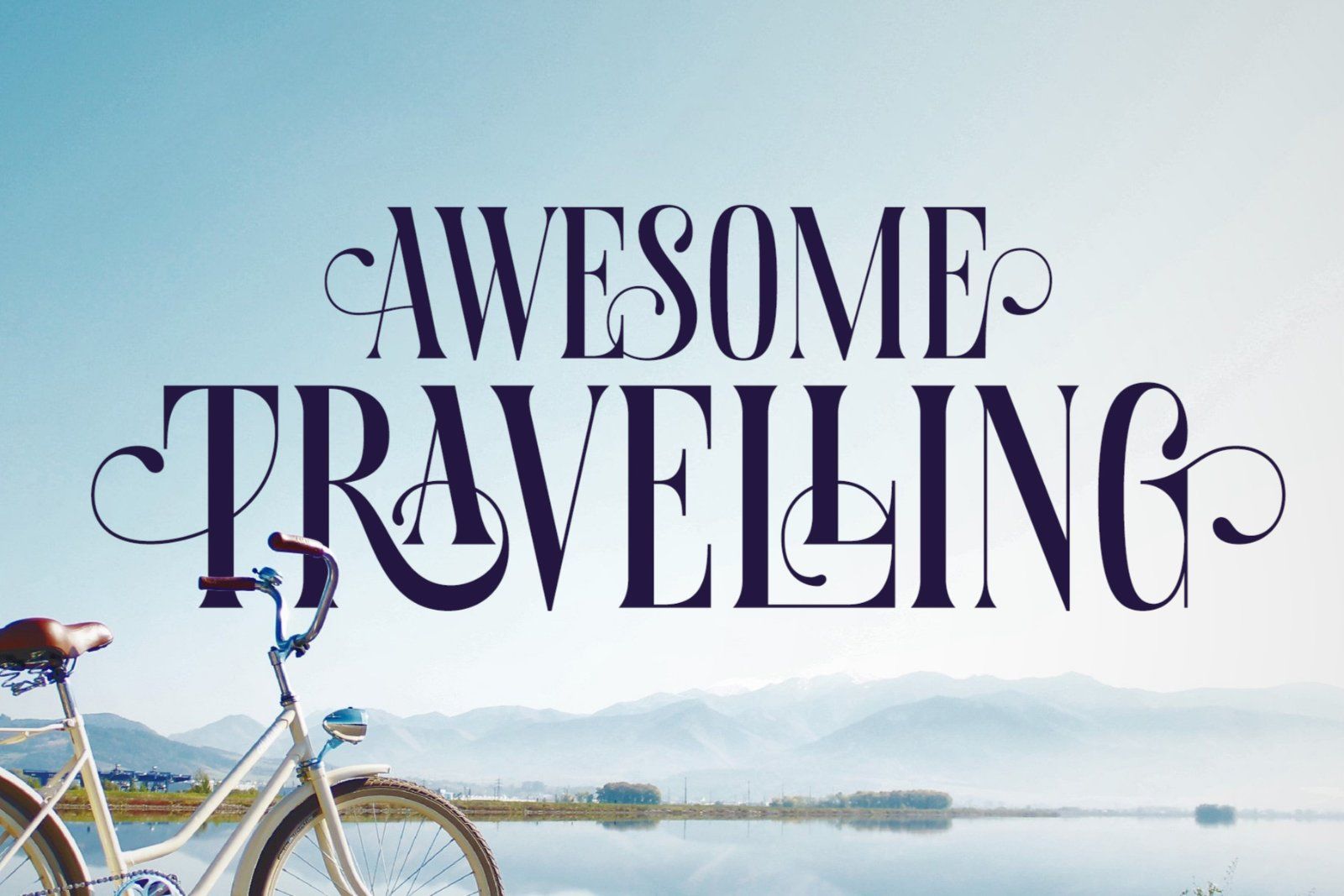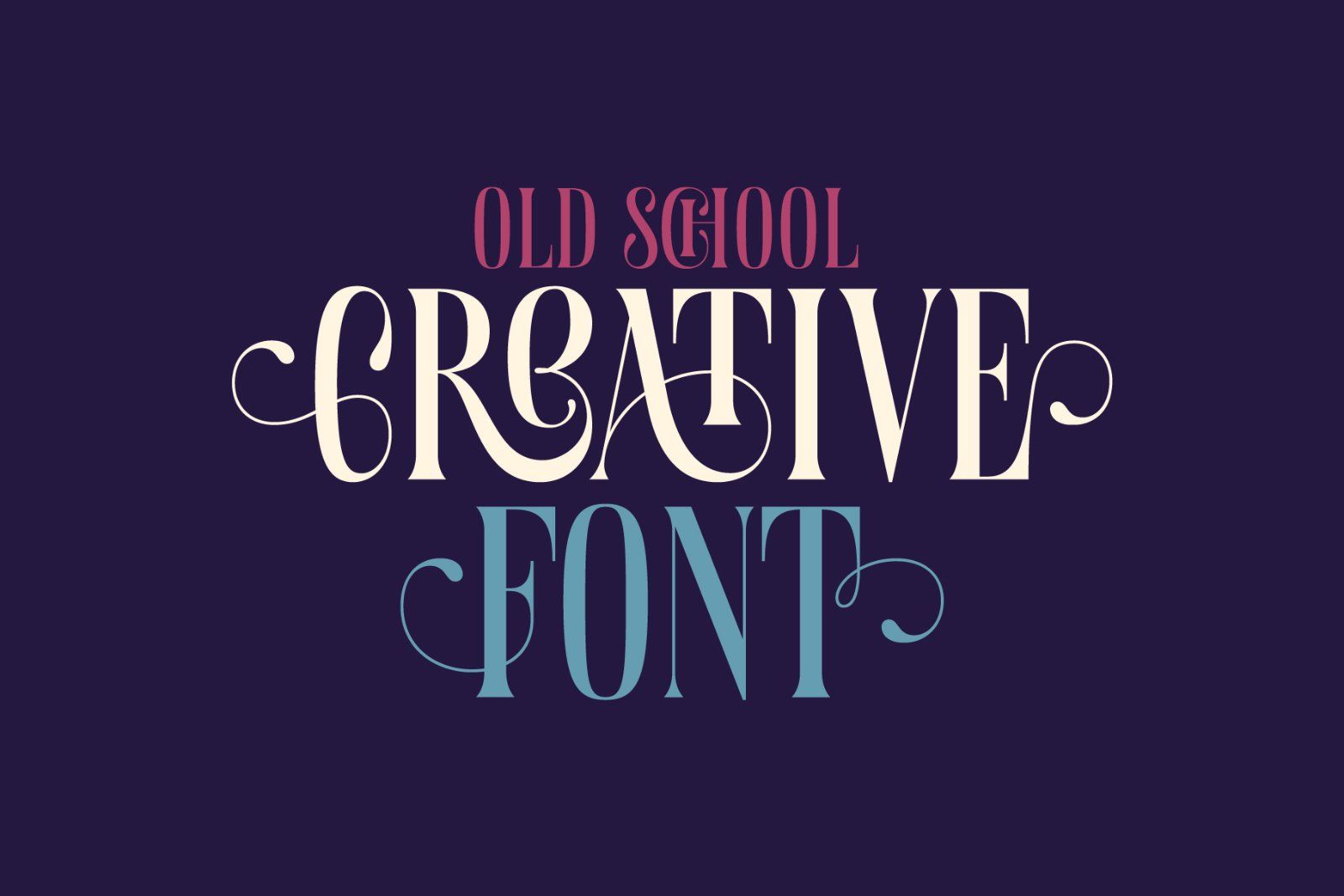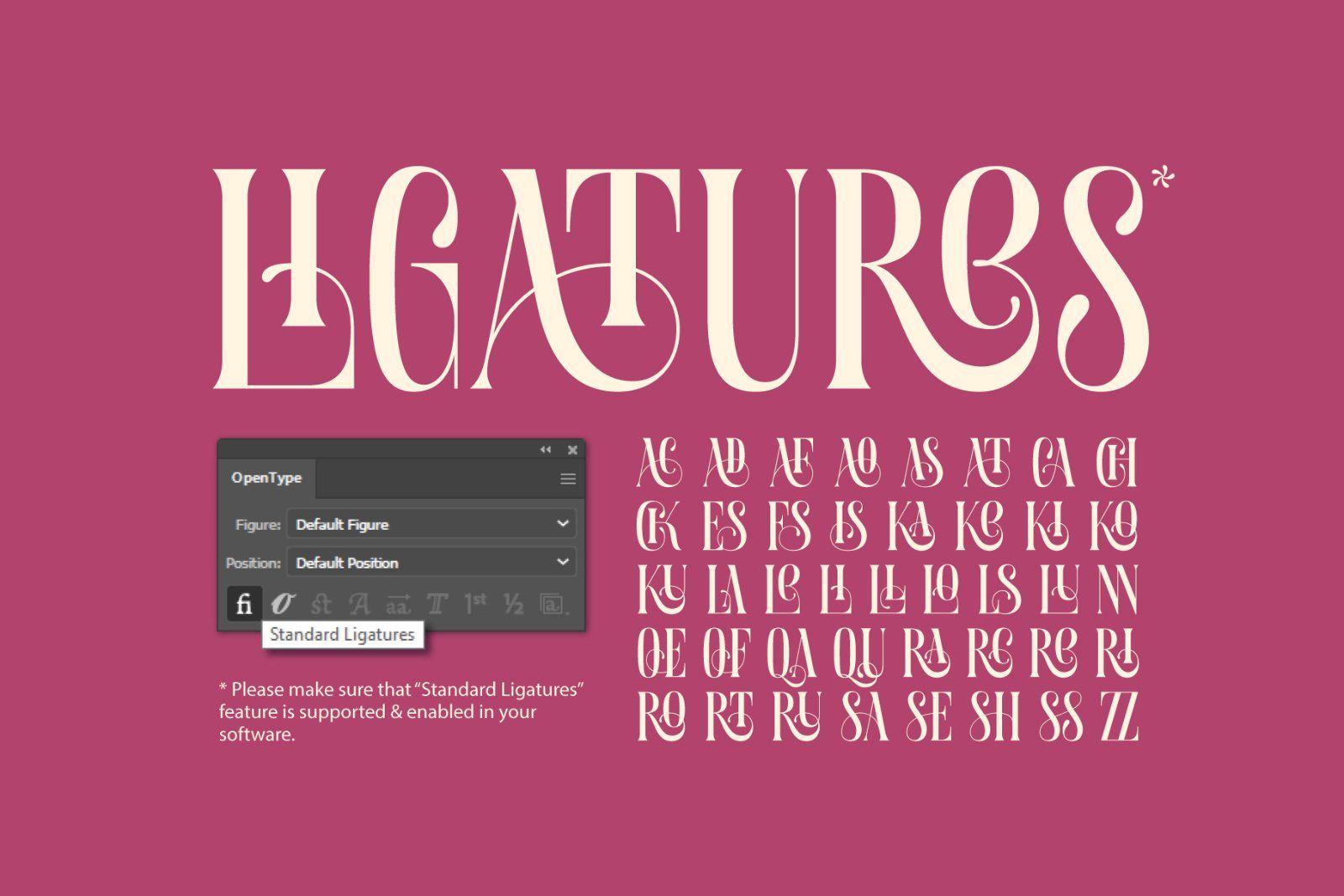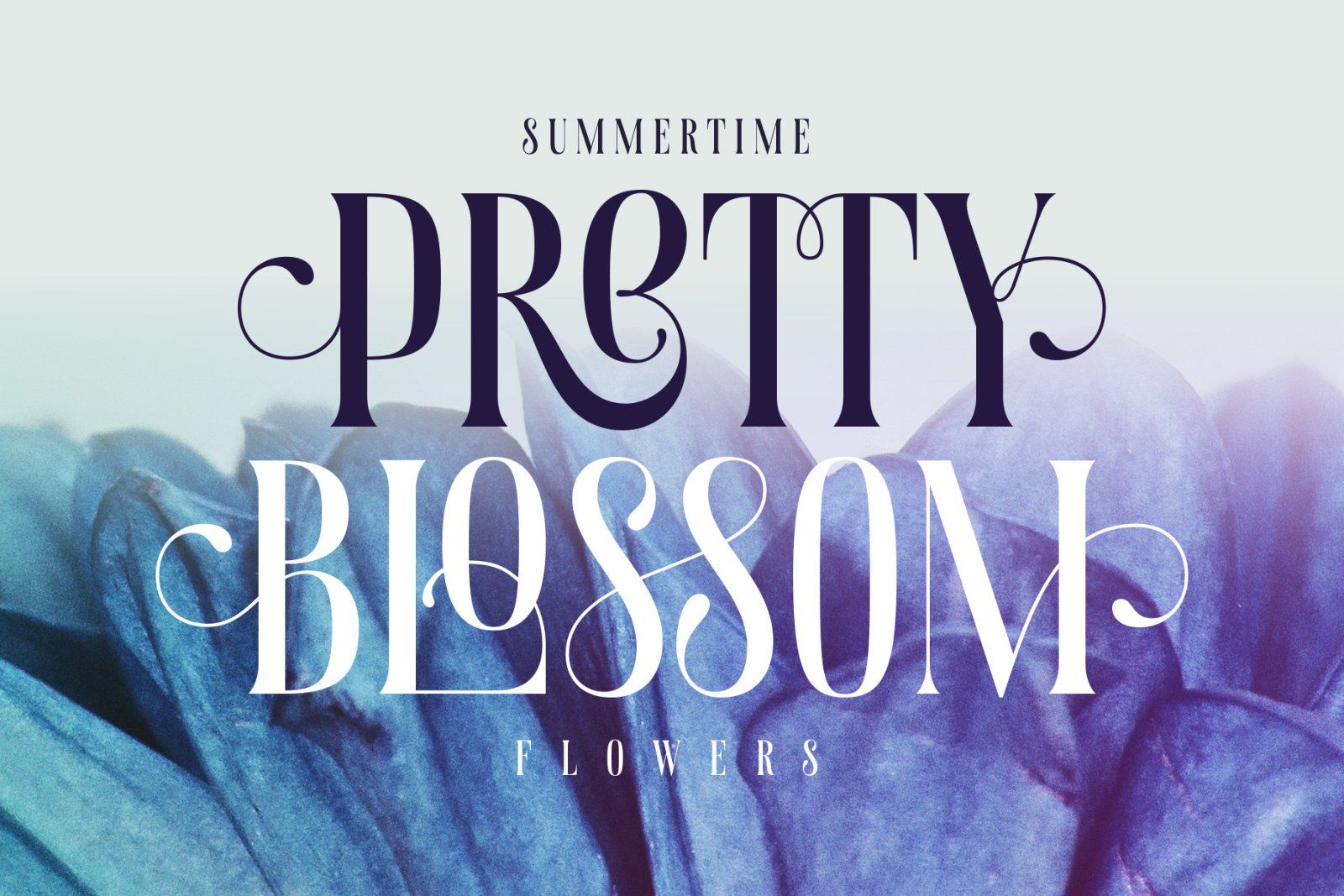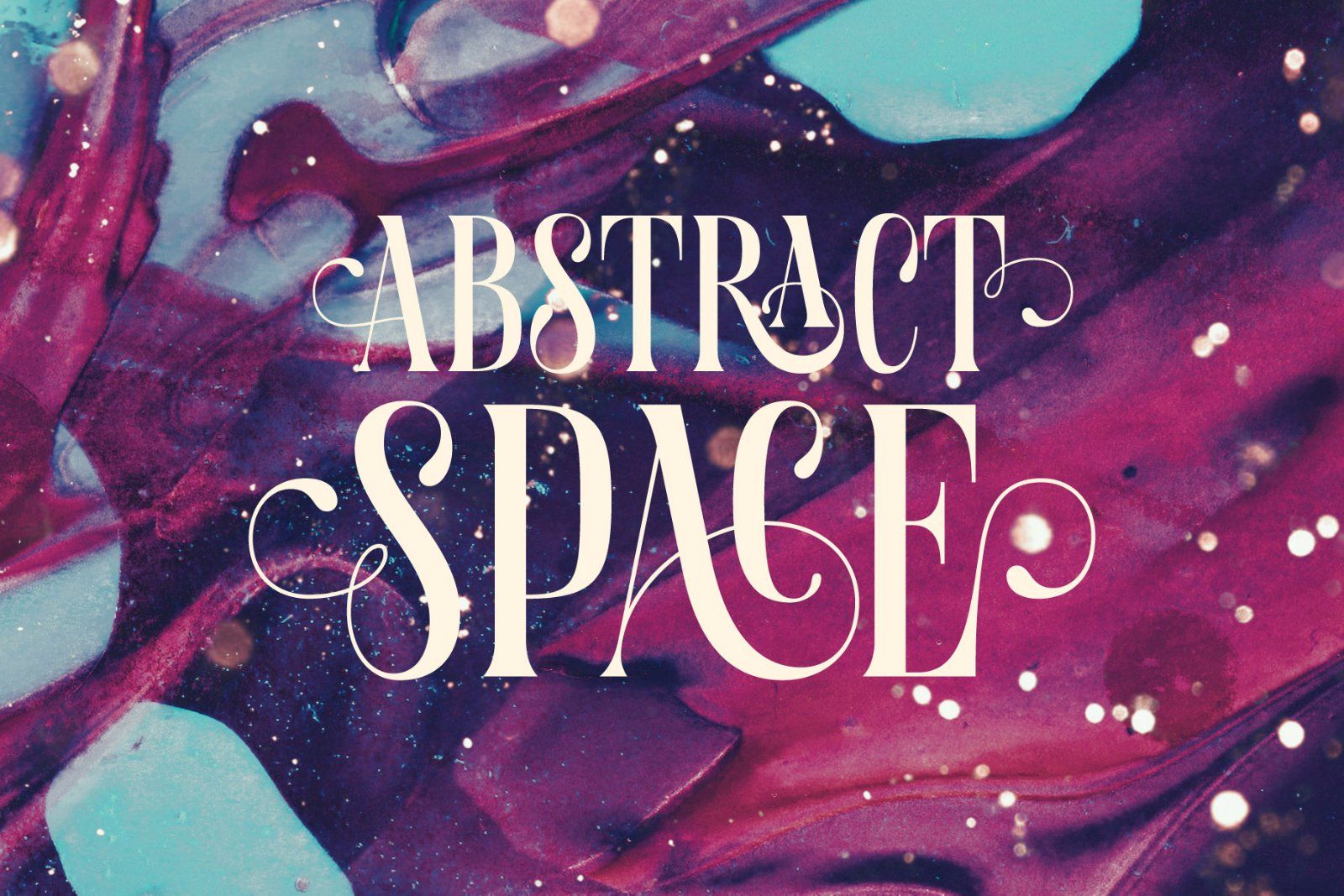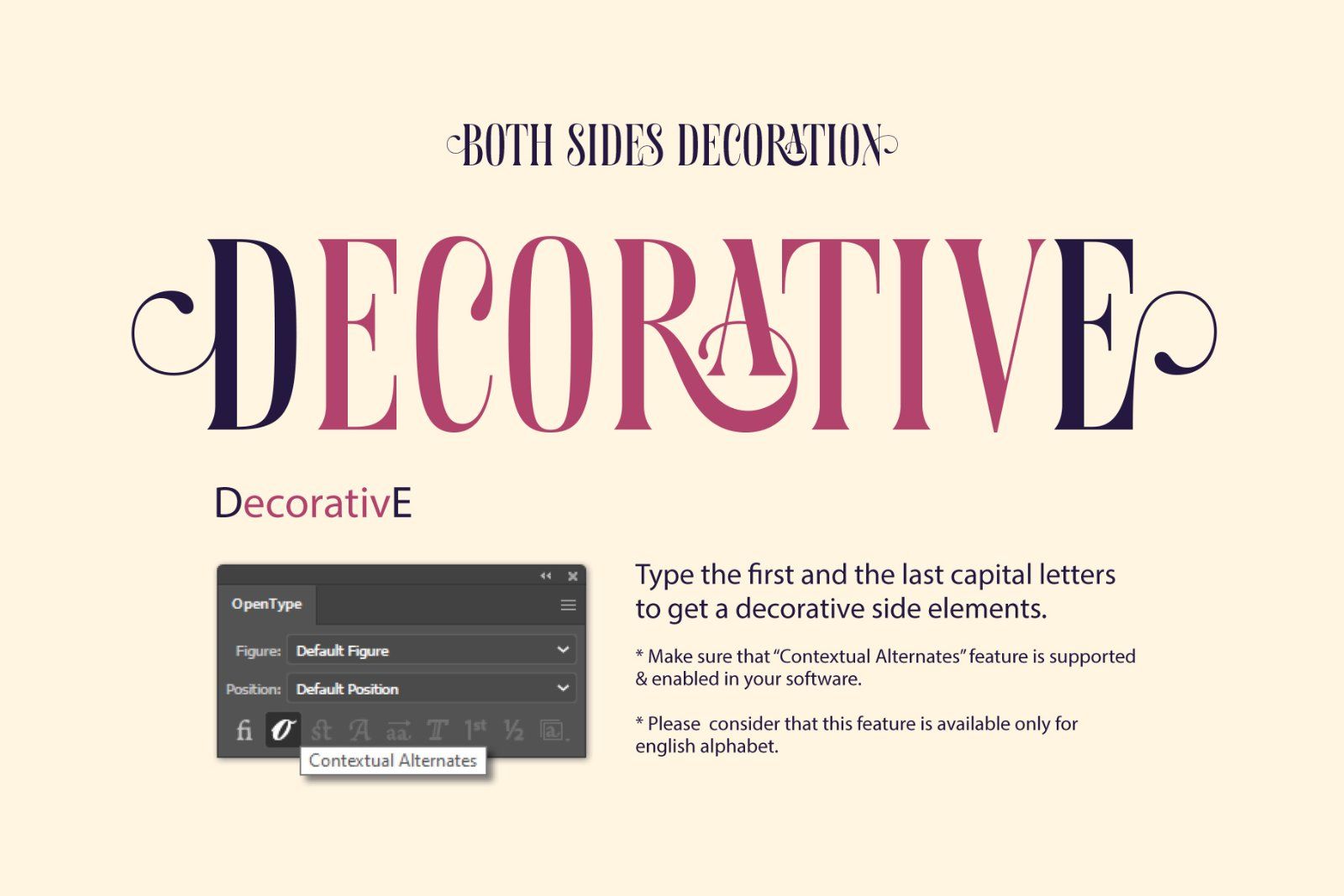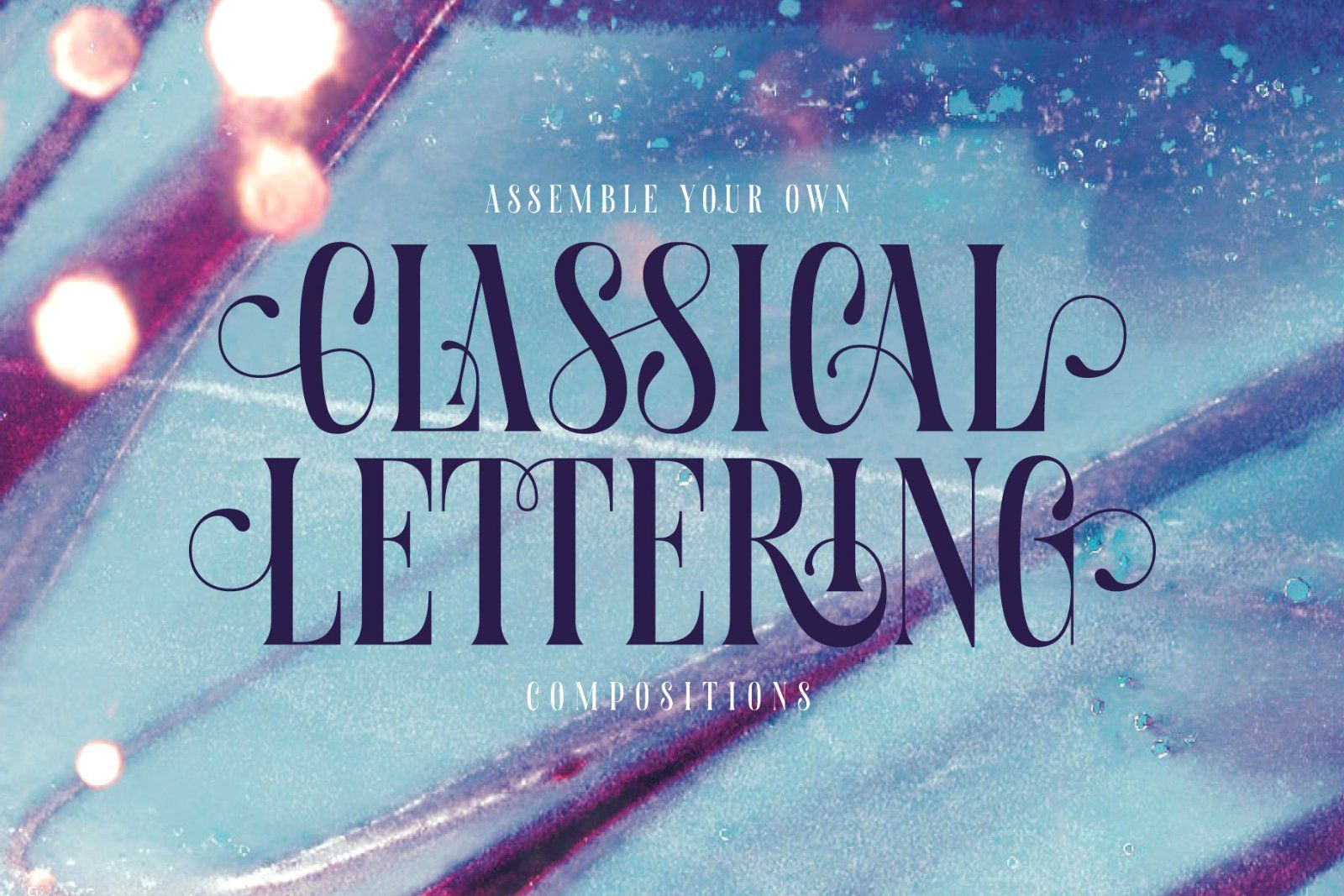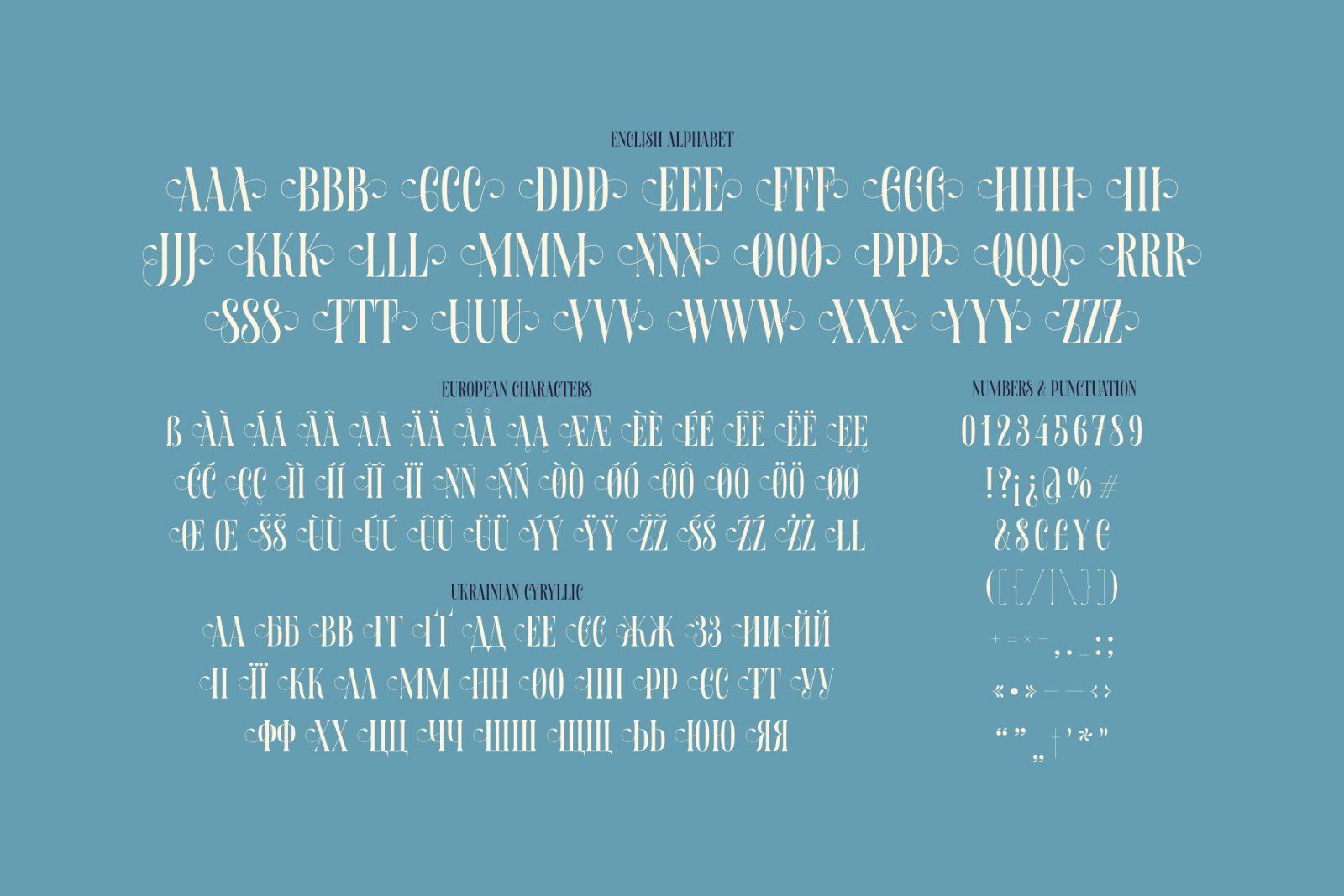
Hi, presenting a classic style font Aquatory. It's a thin and tall decorative font with nice classic shape. A descent advantage of this font is a big set of ligatures and additional characters. As you can see on the previews, the first and the last letters has an extra decorative swirl. To achieve this result just type the first and the last capital letters. Aquatory typeface supports most of the European languages and also has Ukrainian Cyrillic characters.